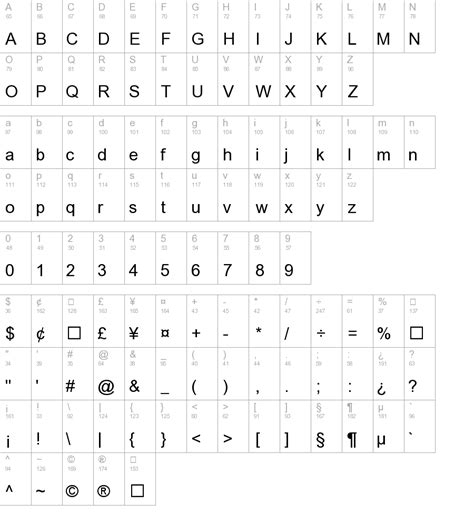
Unicode Ms Font. 8 users have given the font a rating of 4.5 out of 5. Web arial unicode ms regular.
Arial unicode ms regular is a regular truetype font. You can find more information about arial unicode. Web arial unicode ms regular. Compared to arial, it includes higher line height, omits kerning pairs and adds enough glyphs to cover a large subset of unicode 2.1—thus. It has been downloaded 5661 times. Web in this article we'll talk about how to install those fonts so you can use them in microsoft office. To embed fonts in a microsoft office word document or powerpoint presentation, see embedding fonts on the. 8 users have given the font a rating of 4.5 out of 5. Arial unicode ms was originally commissioned by microsoft office as an extended version of the arial typeface to support a large set of international characters. Web arial unicode ms is a truetype font and the extended version of the font arial.
Web arial unicode ms regular. Arial unicode ms regular is a regular truetype font. To embed fonts in a microsoft office word document or powerpoint presentation, see embedding fonts on the. Web in this article we'll talk about how to install those fonts so you can use them in microsoft office. Web arial unicode ms is a truetype font and the extended version of the font arial. 8 users have given the font a rating of 4.5 out of 5. Arial unicode ms was originally commissioned by microsoft office as an extended version of the arial typeface to support a large set of international characters. It has been downloaded 5661 times. Compared to arial, it includes higher line height, omits kerning pairs and adds enough glyphs to cover a large subset of unicode 2.1—thus. You can find more information about arial unicode. Web arial unicode ms regular.